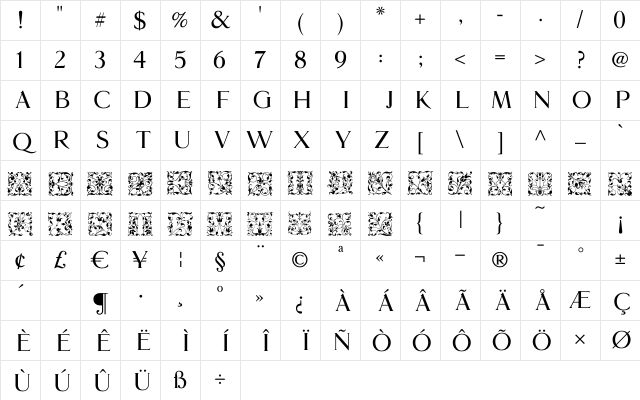
GlossoInitials Regular Free Font
GlossoInitials Regular
Design Context for GlossoInitials
GlossoInitials is a composed and adaptable typeface that performs quietly and consistently across a wide range of design contexts.